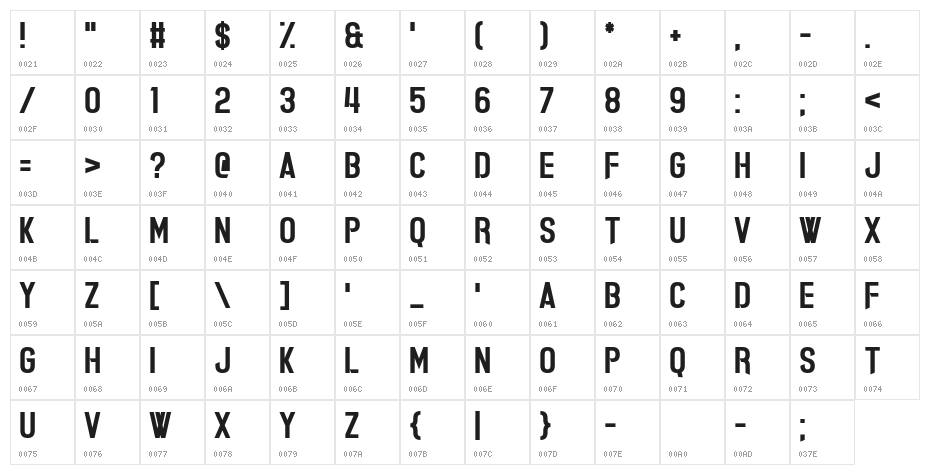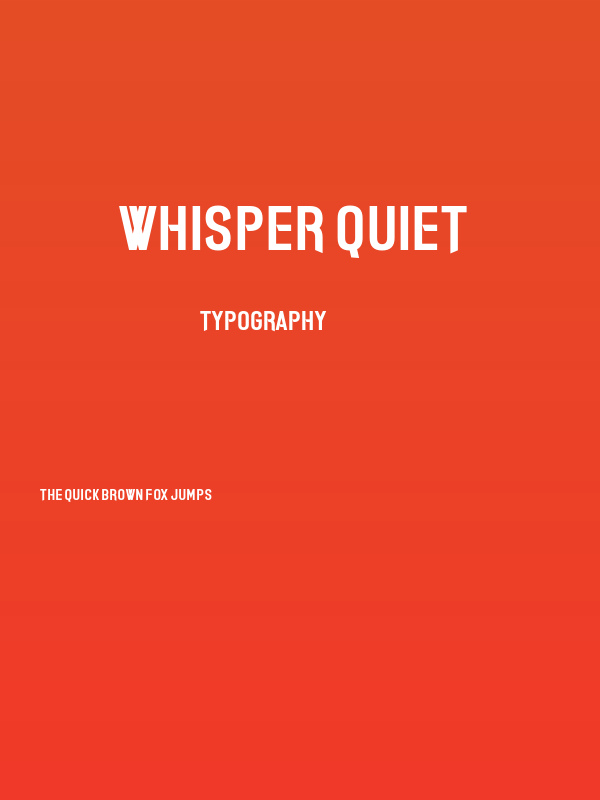
Whisper Quiet Font
Whisper Quiet Description
This font features a bold and impactful design, characterized by its strong geometric shapes and uniform stroke widths. The letters are constructed with a modern aesthetic, showcasing a sans-serif style that emphasizes clarity and readability. The uppercase and lowercase letters maintain a consistent height, contributing to a cohesive and structured appearance. The numerals are equally bold, ensuring they stand out in any context. Special characters are designed with the same attention to detail, making them suitable for various applications. The overall design is clean and straightforward, making it ideal for projects that require a contemporary and assertive look.
| Proposed Projects | Ideal for branding, advertising, posters, and headlines where a strong visual impact is needed. |